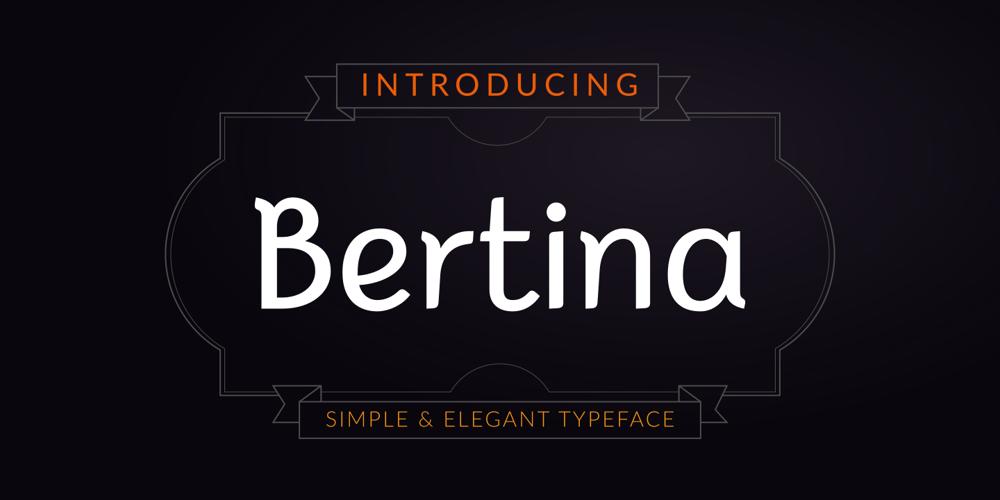
Bertina Font Family was designed by Rijal Muttaqin and published by 611 Studio. Bertina contains 1 styles and family package options. Bertina, simple and elegant typeface with feminine touch. It’s simplicity makes it best for headlines, letterhead, quotes and even logo.